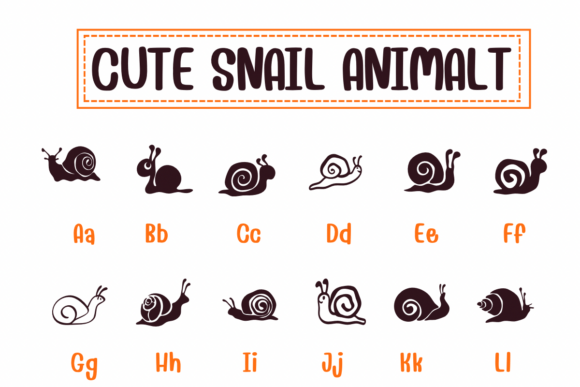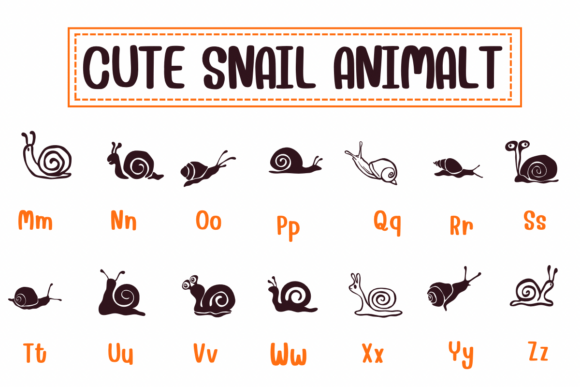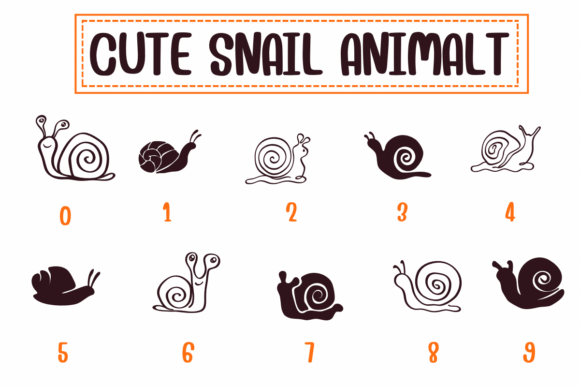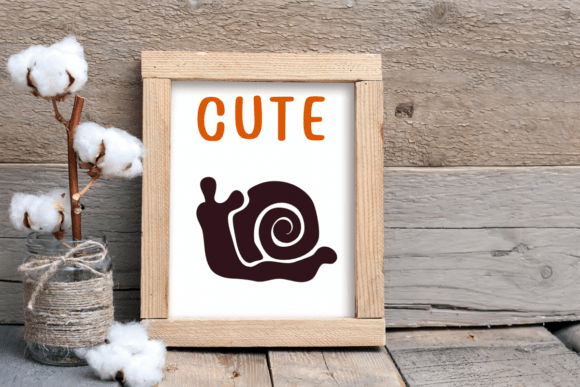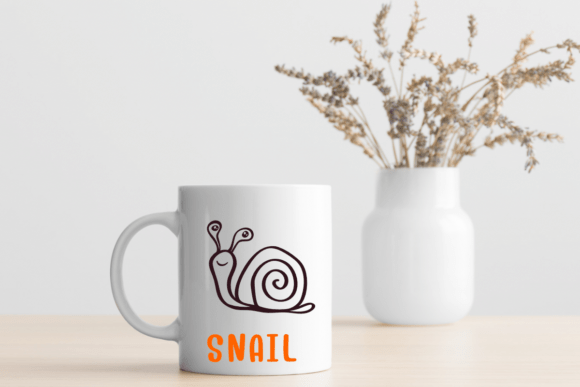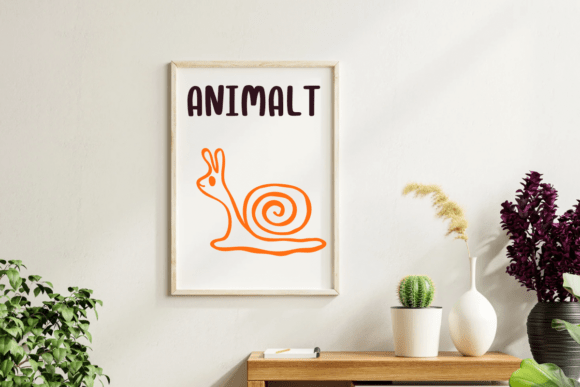
Introduction to Cute Snail Animal Font
Cute Snail Animal is a dingbats font with a sketched style.
This font can enhance your creative projects such as wedding invitations, DIY, crafts, decorations, logos, and many other creative ideas .
Key Features of Cute Snail Animal Font